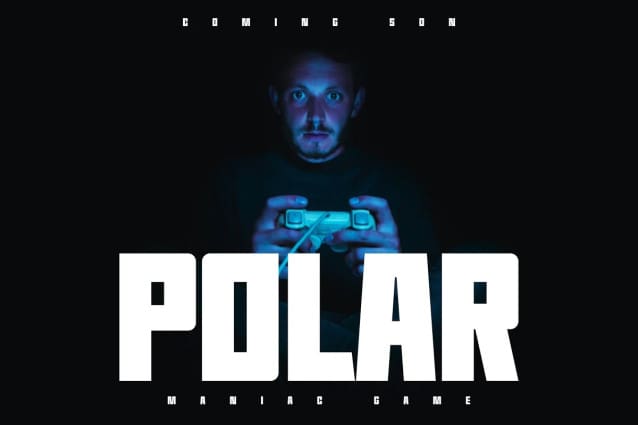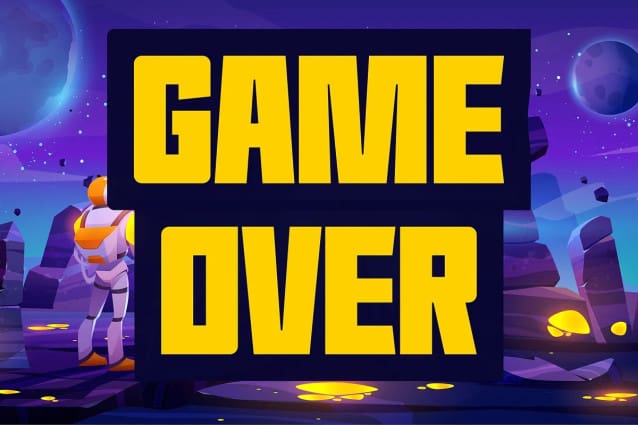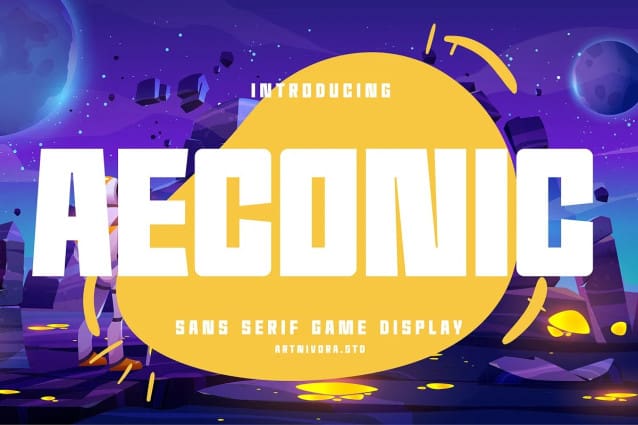
Aeconic Font
Aeconic Font, a simple and sans serif font. So perfect for you who needs a typeface for logo designs, magazine, social media, brochure, and many more.